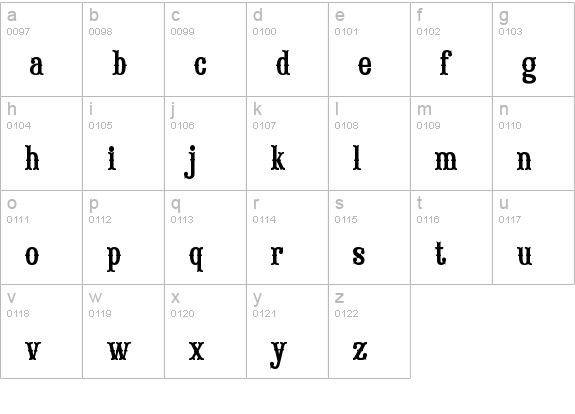
Introducing Saloon Girl, a captivating and versatile font that effortlessly transports you to the wild west, evoking images of sassy saloon girls and dusty old towns. With its intricate details and vintage charm, this font is perfect for adding a touch of old-fashioned elegance to your designs. Saloon Girl is a free font that combines classic serif elements with a playful twist, creating a unique and eye-catching style. Its flowing curves and delicate serifs give it a graceful and feminine feel, while its bold letterforms command attention with their confident presence. Whether you're designing invitations for a western-themed event, creating vintage-inspired logos, or simply adding a touch of nostalgia to your typography, Saloon Girl is the perfect choice. Its versatility allows it to be used in a variety of projects, from branding and packaging to signage and social media graphics. And the best part? Saloon Girl is freely available to download at FontsMarket.com. This means that you can easily access this stunning font and start incorporating its charm into your designs without any hassle. So go ahead, unleash your creativity and let Saloon Girl bring a touch of old-world elegance to your next project.